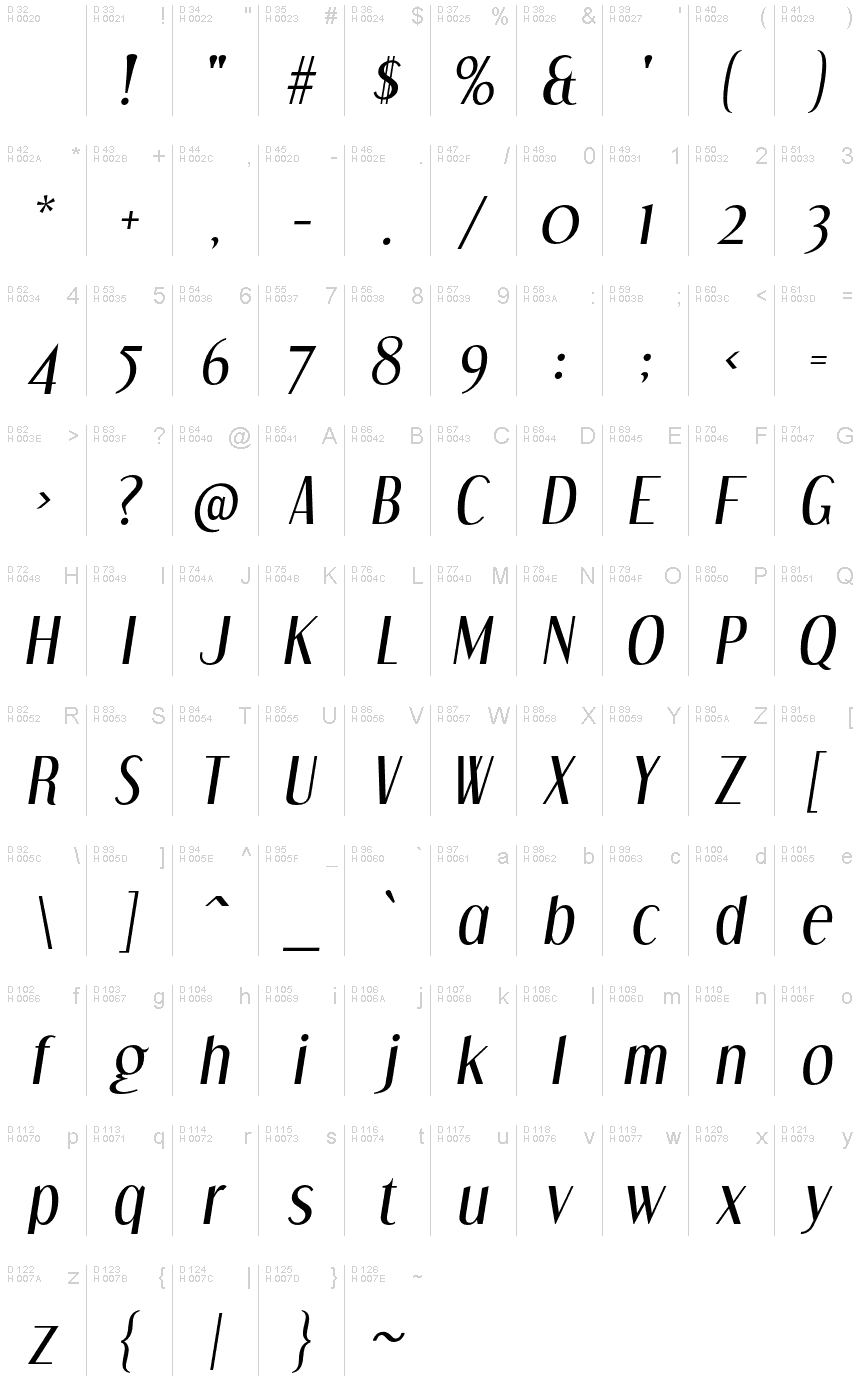
DreamOrphans-Italic
Dream Orphans is a condensed, humanist sans serif display font. While some might find the quaggy curves charming, you should also consider the more refined Dream Orphanage font family.